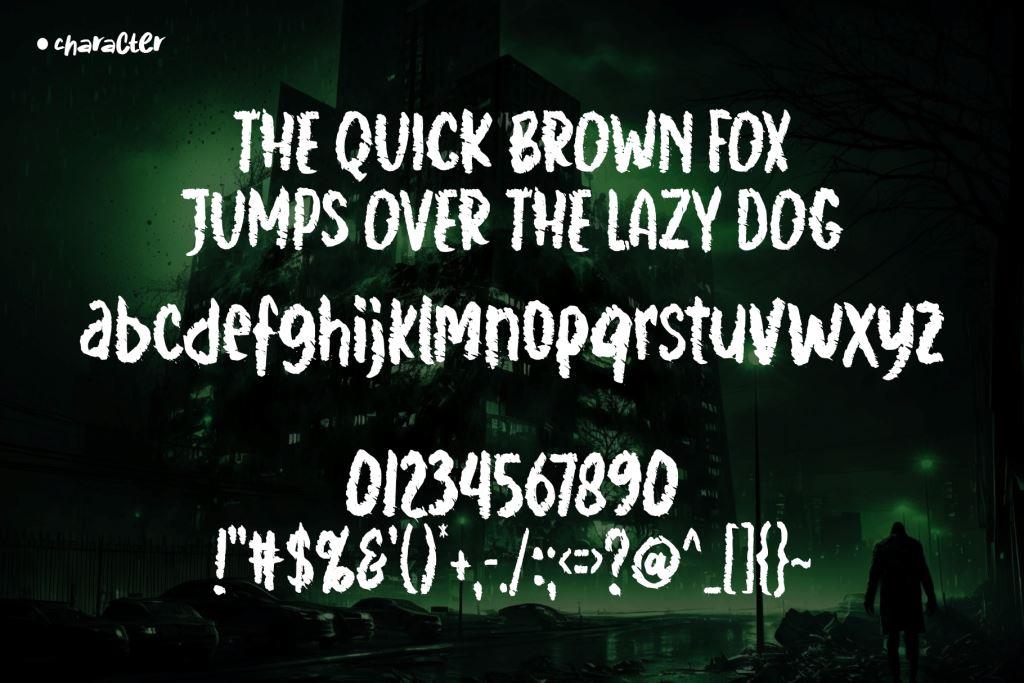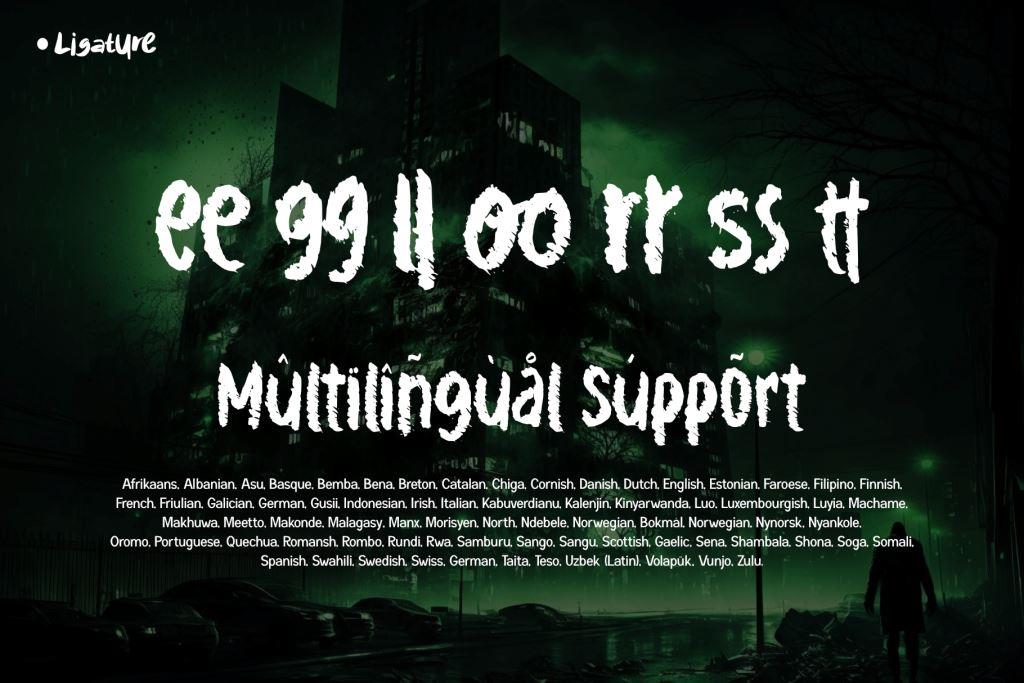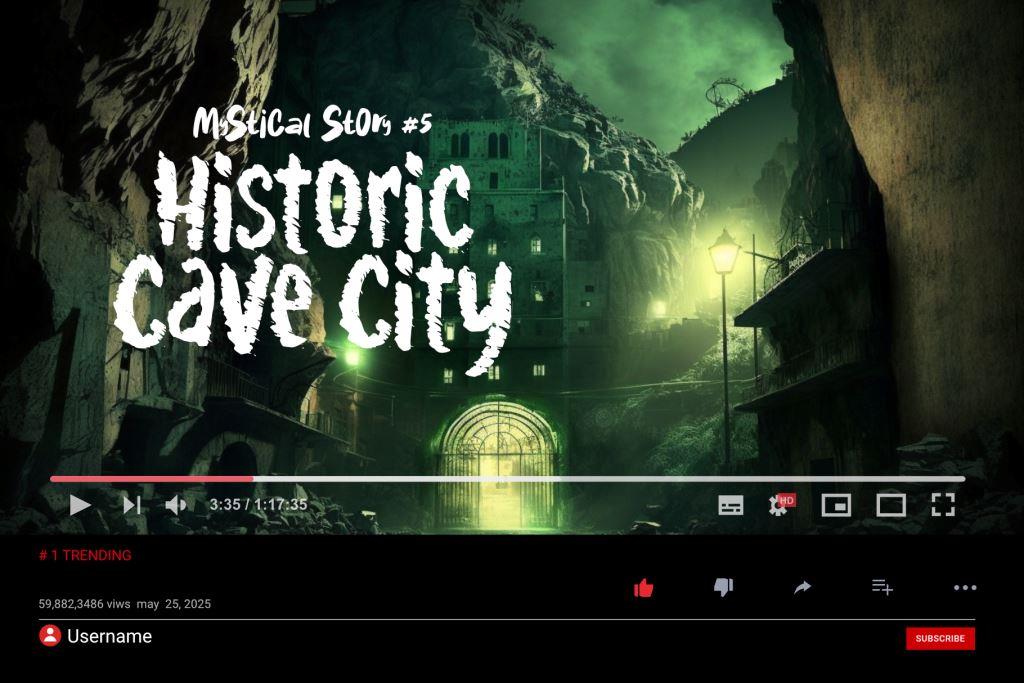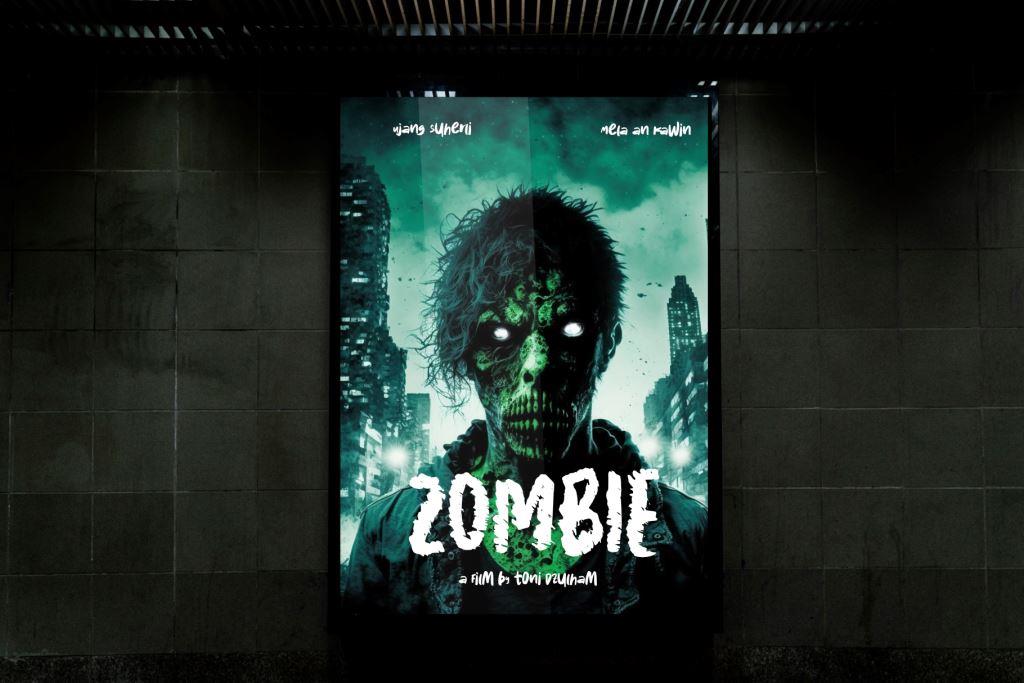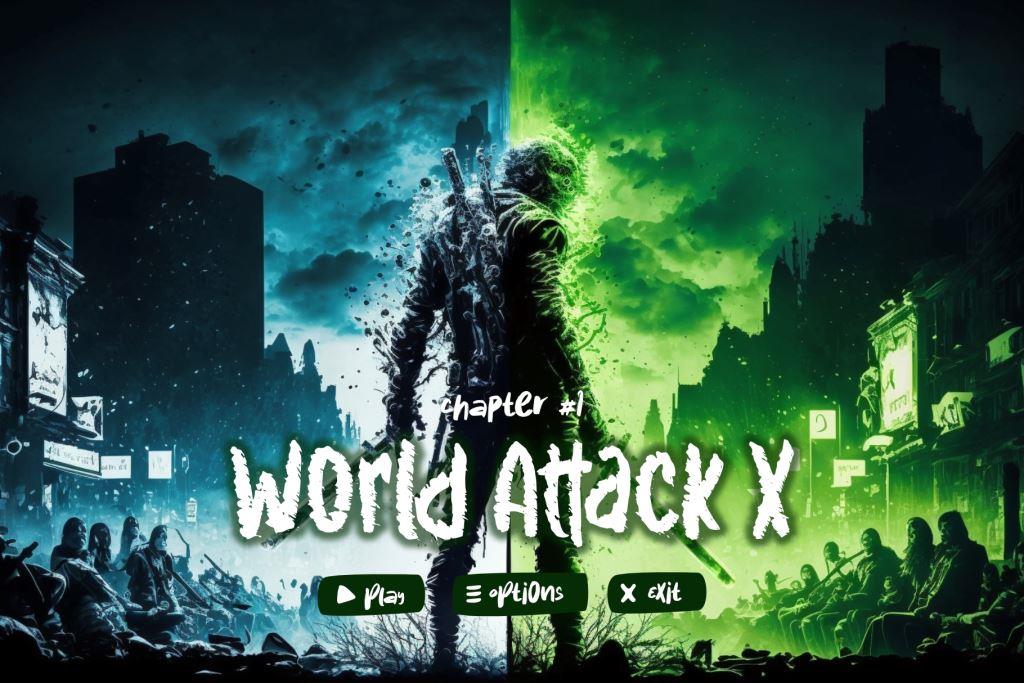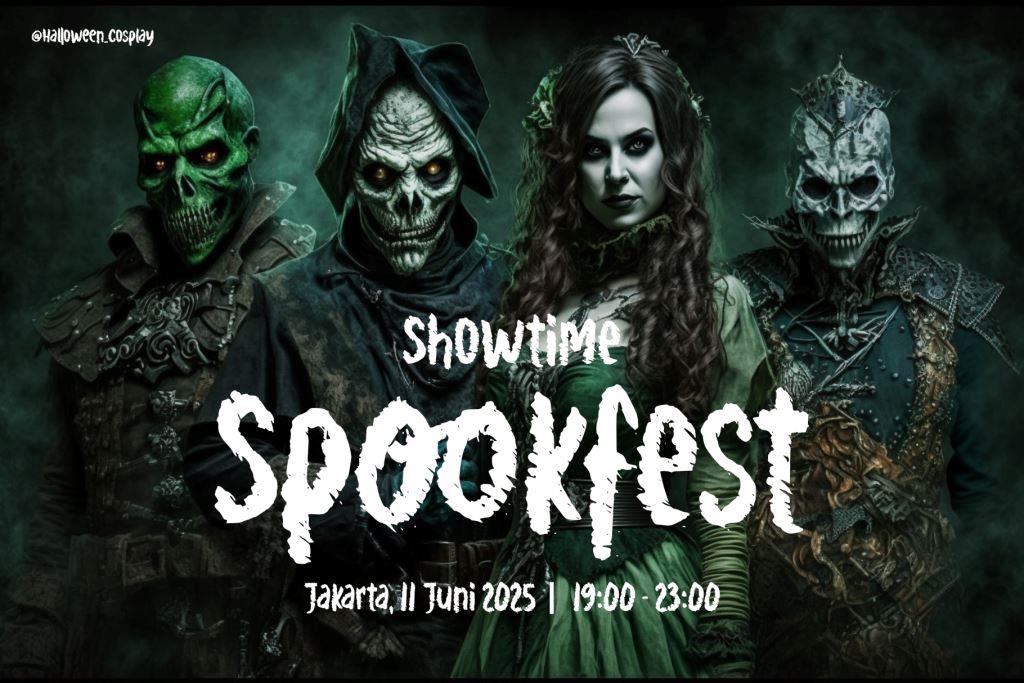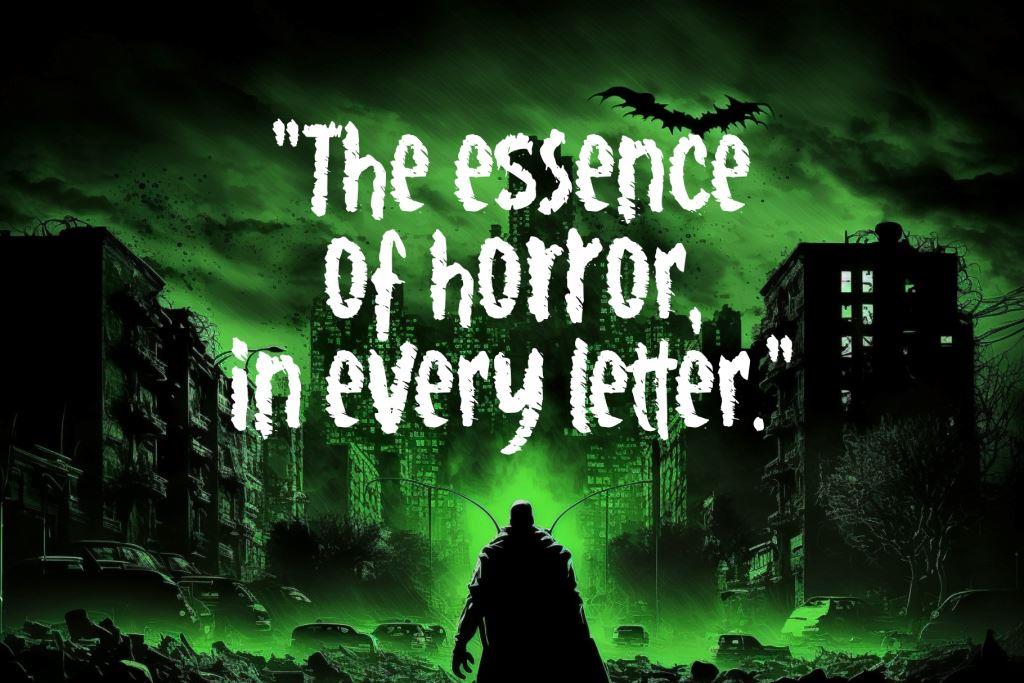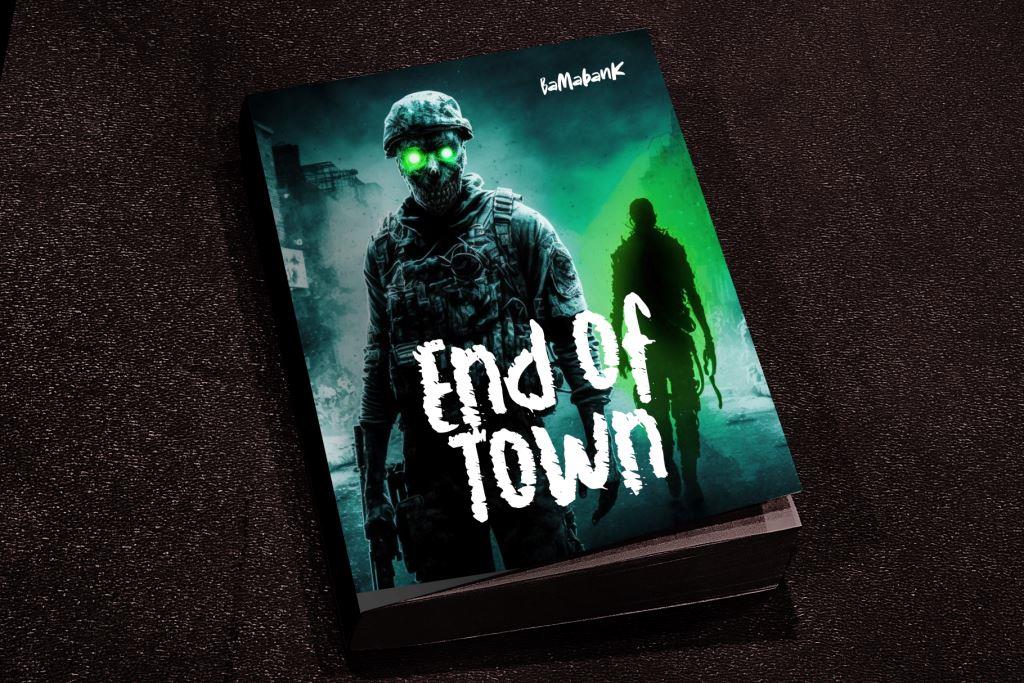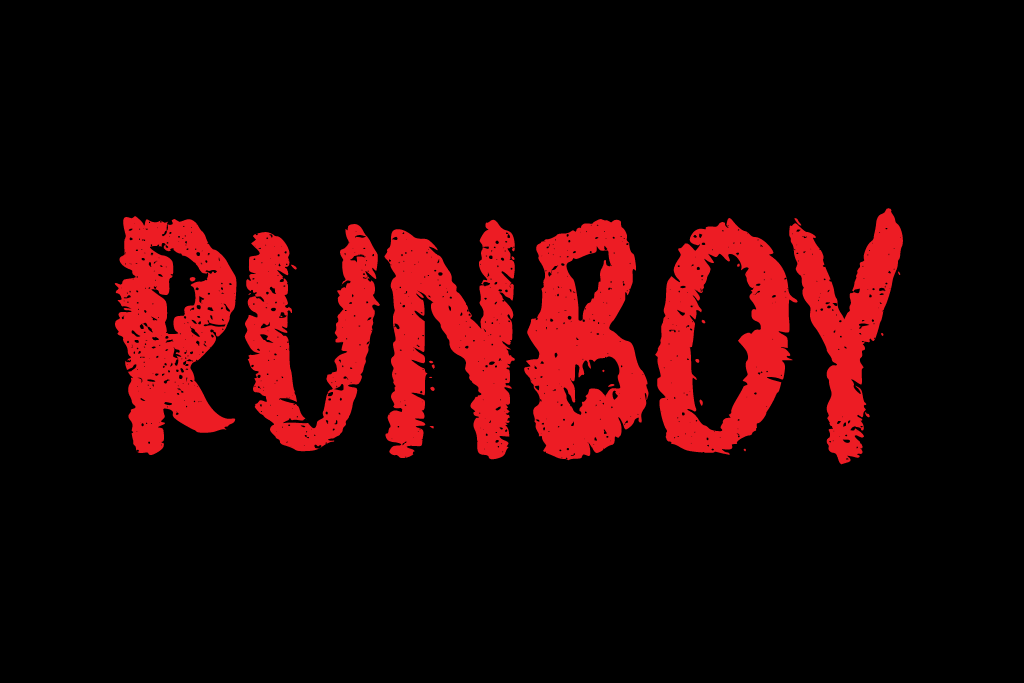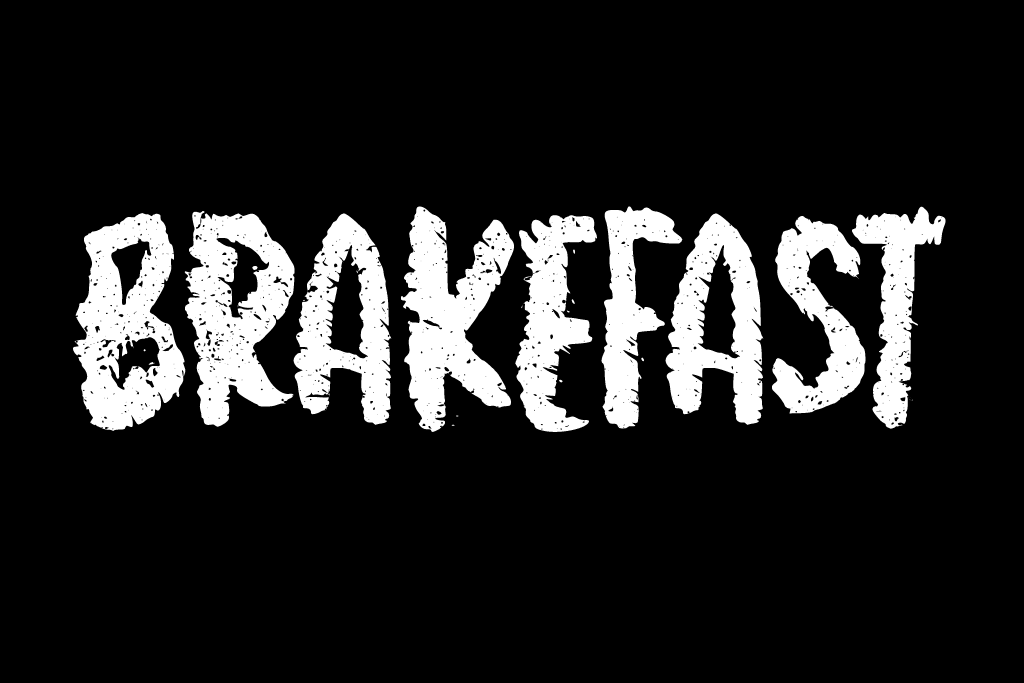
- Crazy Joker
“Crazy Joker” is a captivating horror font that embodies madness and darkness, perfect for designs aiming to create a striking horror atmosphere. This unique font combines the aesthetics of hand-drawn sketches with a crazy and terrifying style, creating an unsettling and chilling impression.
Each letter in the “Crazy Joker” font appears as if it has been hand-drawn, with irregular lines, chaotic details, and elements that are truly eerie. The font’s design evokes a sense of madness and imbalance, reminiscent of the mysterious and terrifying joker characters.
Whether you’re working on a shocking horror film poster, a spine-chilling book cover, hair-raising content, a gripping horror game title, an unforgettable horror event, or any design that seeks to create a chilling atmosphere, “Crazy Joker” is the perfect choice. Its ability to create tension and confusion will provide an unforgettable experience for viewers.
“Crazy Joker” is highly versatile and can be used effectively in various sizes and layouts. It is suitable for bold and attention-grabbing titles, as well as smaller text elements that want to add a touch of horror to the design. The font also supports a wide range of characters and punctuation marks, allowing for extensive use in different languages and creative projects.
By incorporating “Crazy Joker” into your designs, you will evoke an unsettling and bewildering atmosphere. The font invites viewers to enter a realm of madness and experience the darkness of the joker character. Let “Crazy Joker” bring your chilling design to life (or insanity).
+ Ligature
+ Multilingual Accent